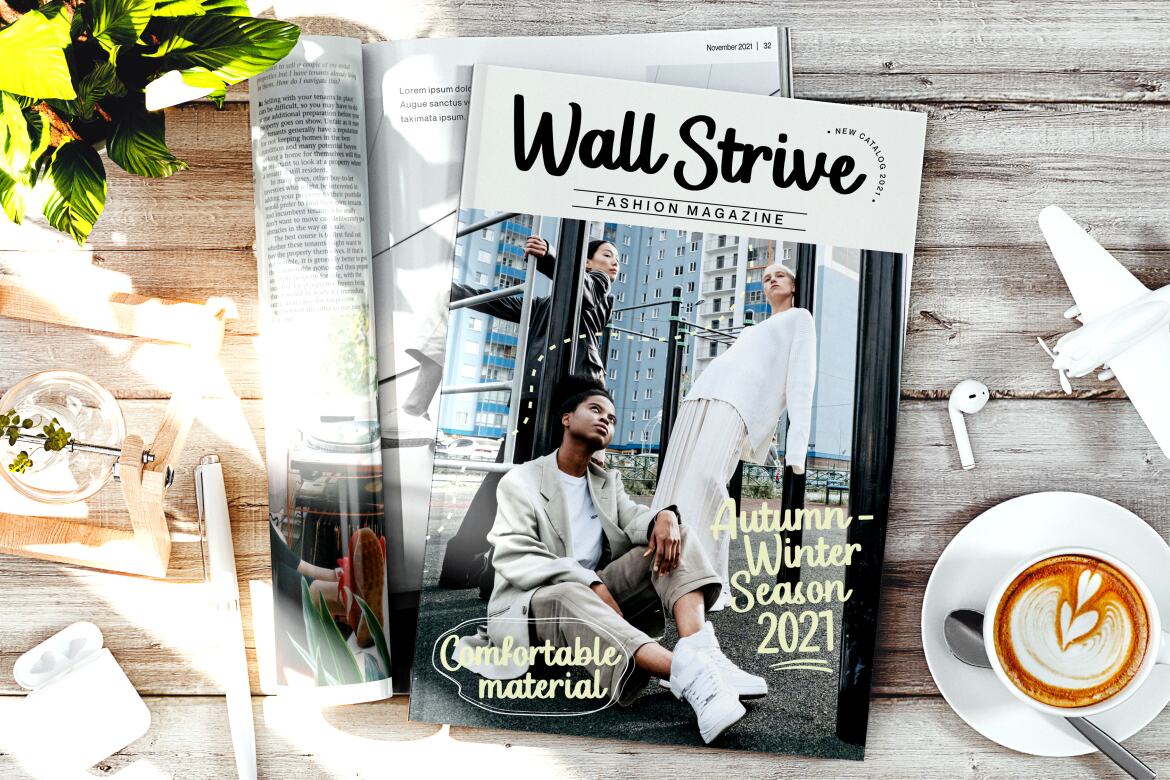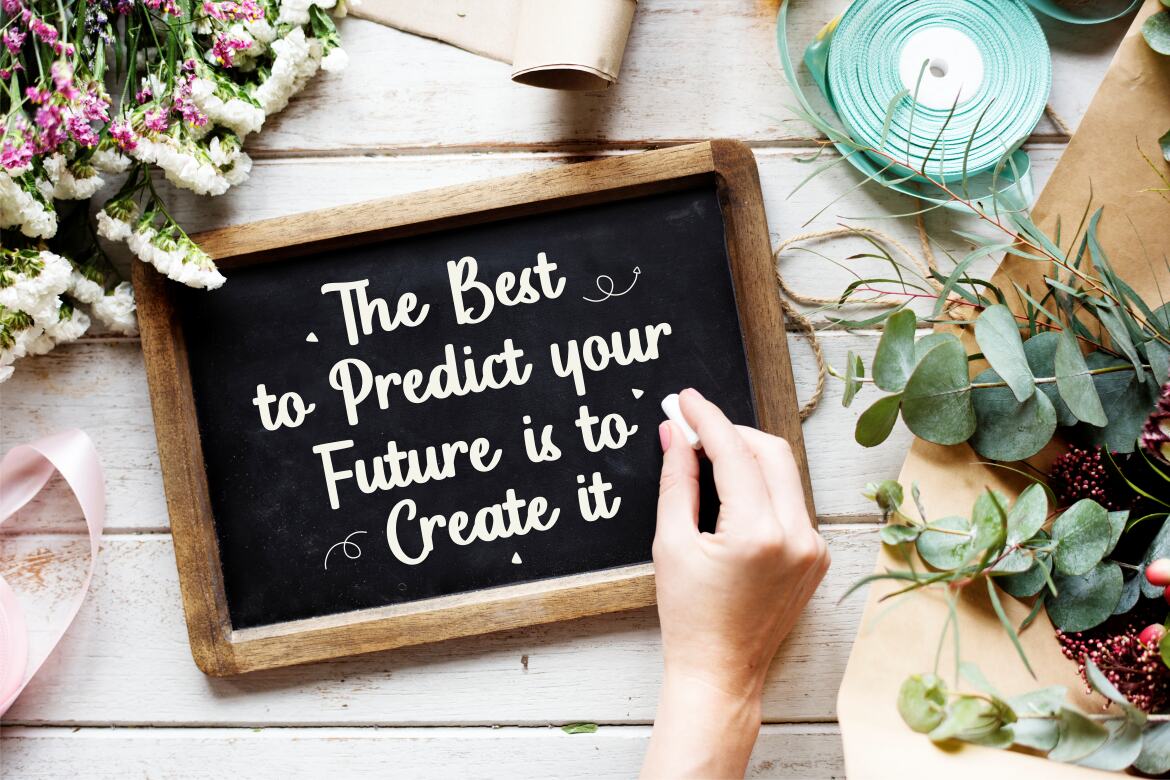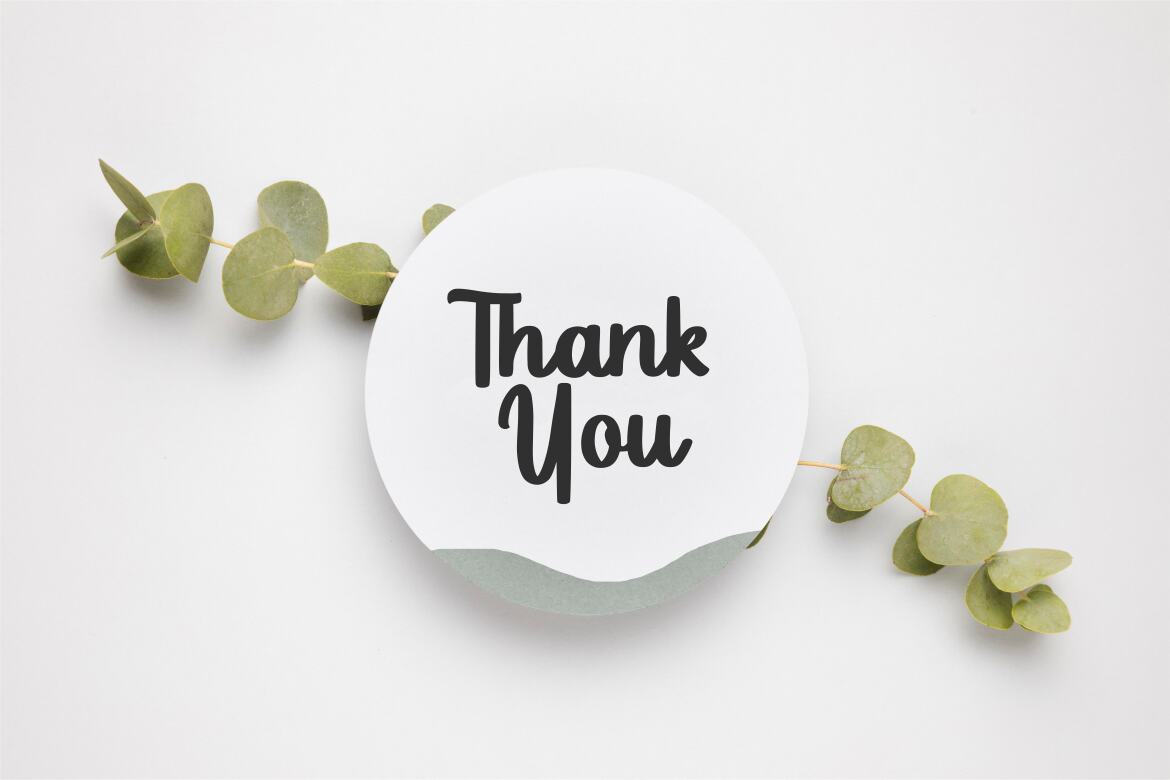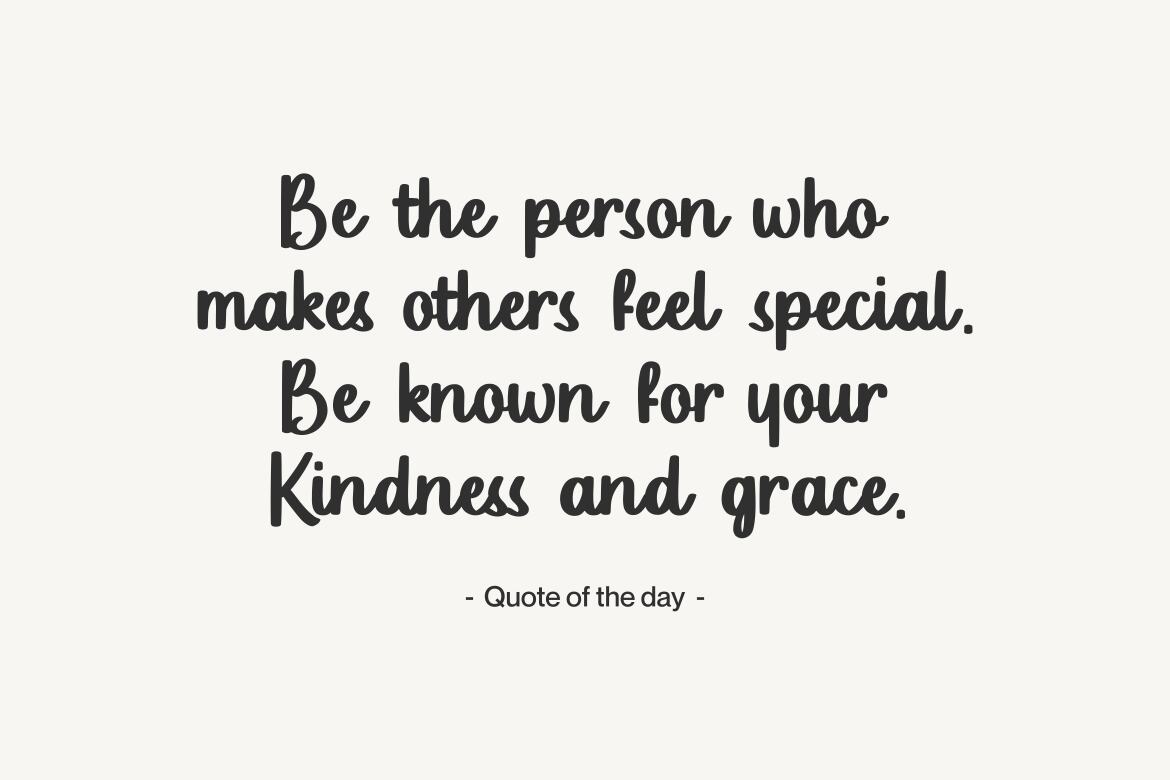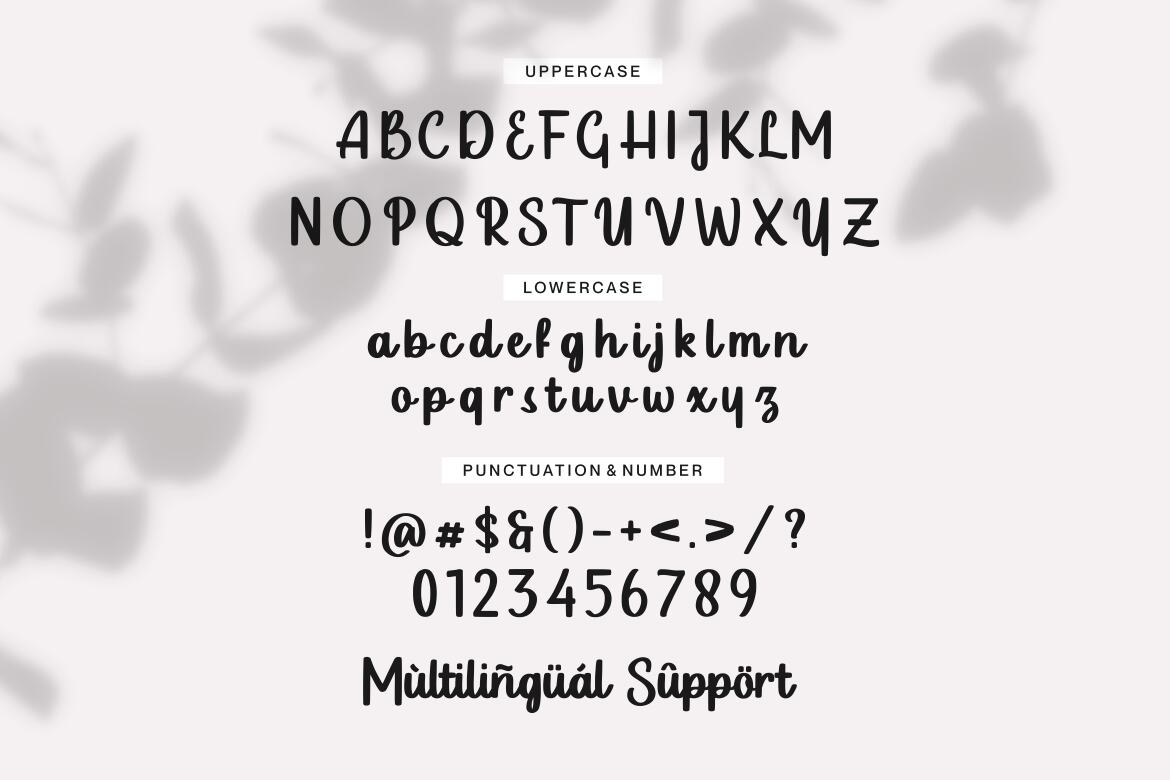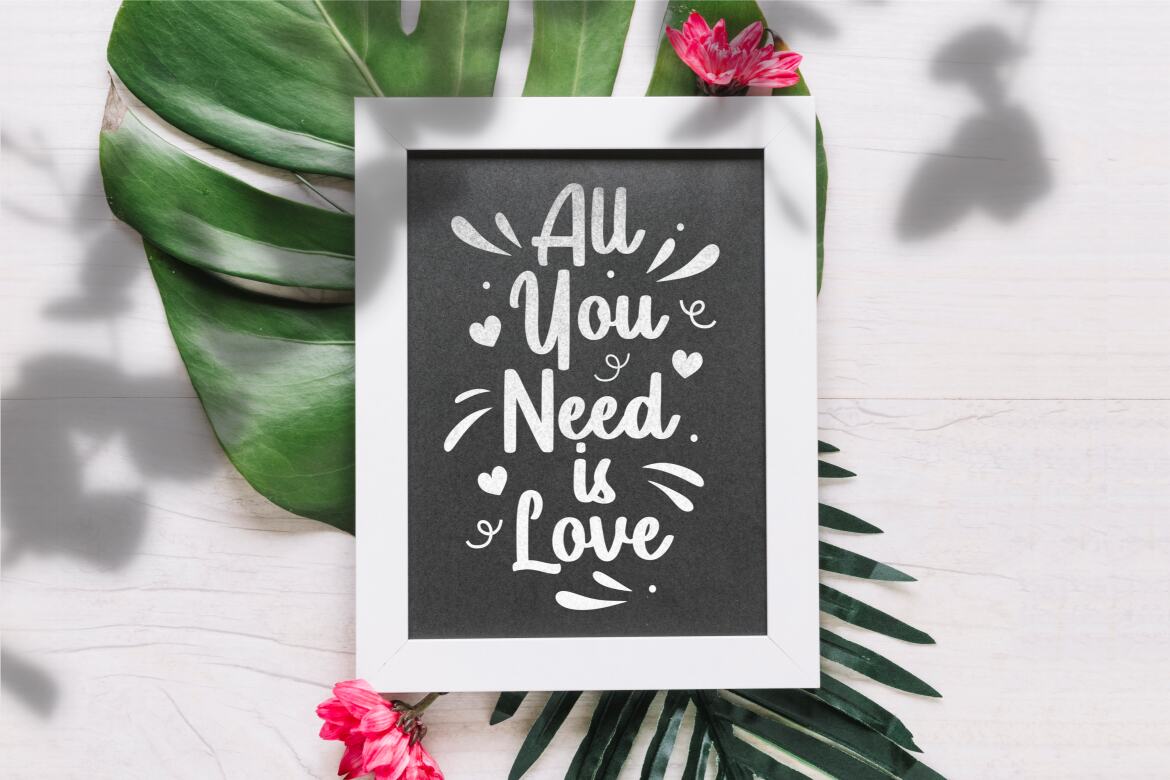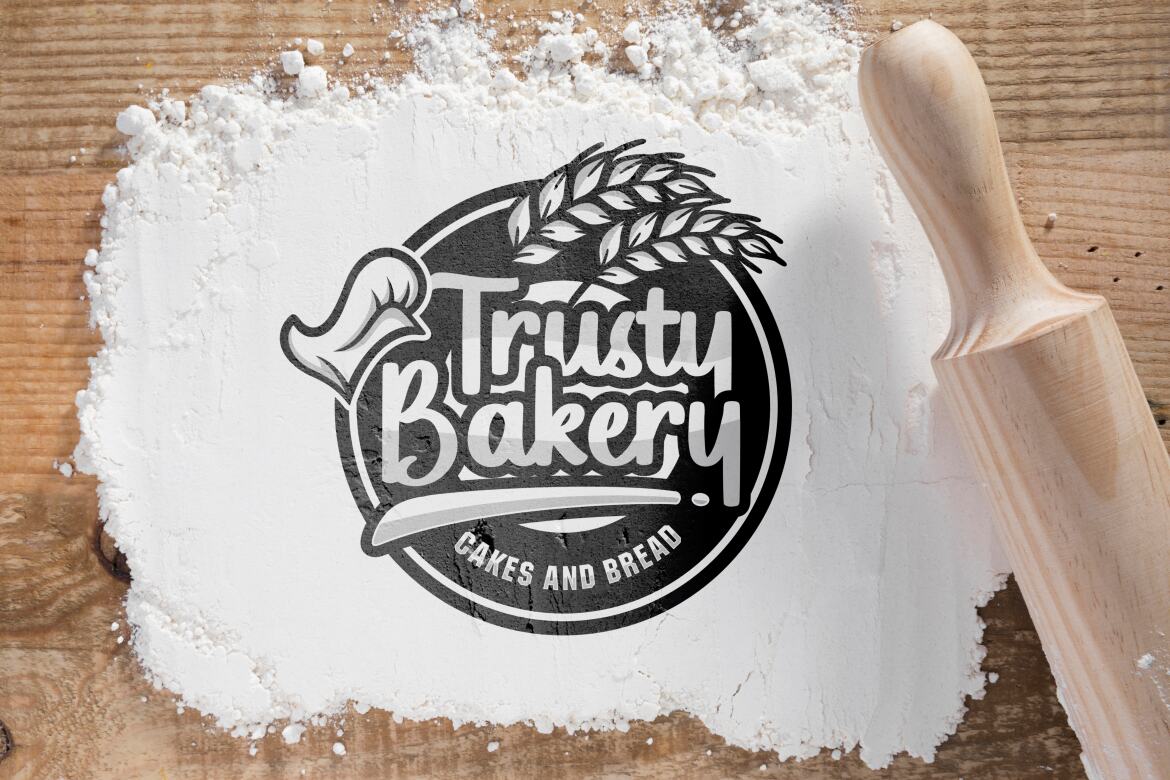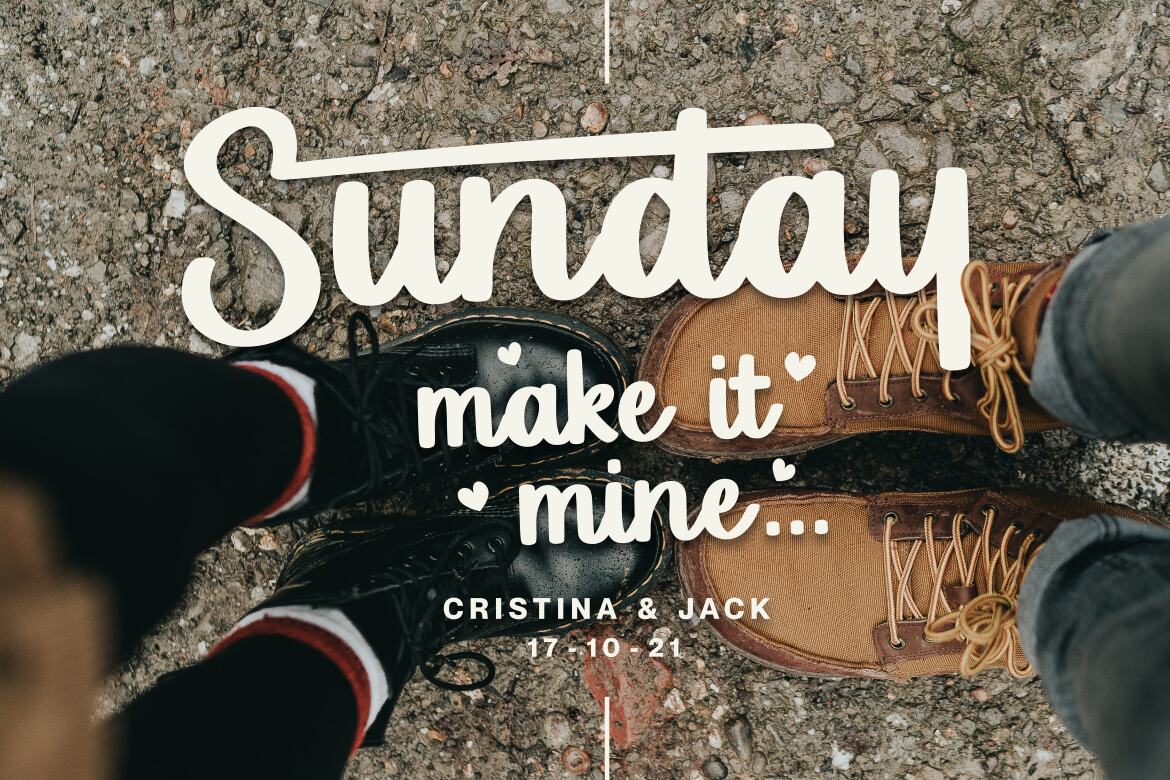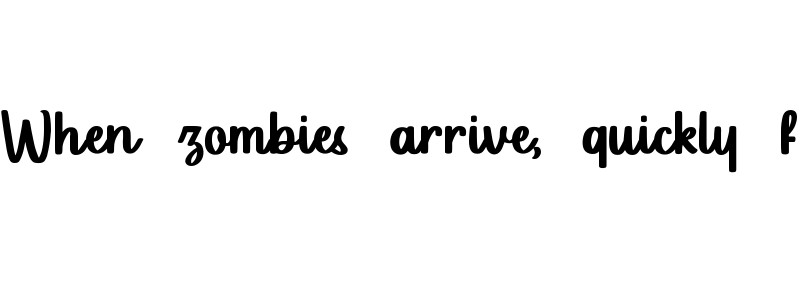
Luckyfield FREE Font
Luckyfield
Introducing by Allouse.Studio
Proudly Present, Luckyfield
Luckyfield is a Fat Handwritten Font
Luckyfield is perfect for product packaging, branding project, megazine, social media, wedding, or just used to express words above the background.